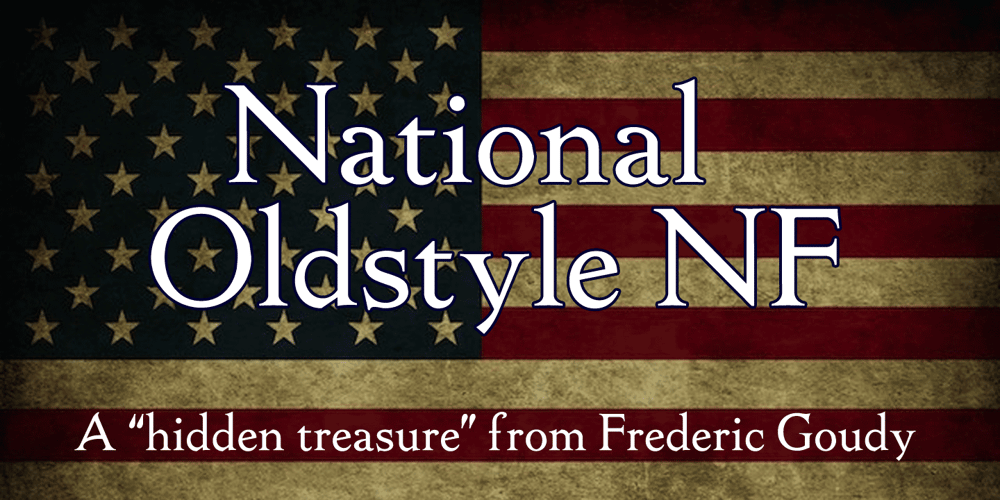
National Oldstyle NF Font Family was designed by Frederic W. Goudy, Nick Curtis and published by Nick’s Fonts. National Oldstyle NF contains 1 styles and family package options. This font is based on a little-known work by master type craftsman Frederic Goudy called—wait for it—National Oldstyle. Use it when a blend of classic and slighly quirky is called for. Both versions of this font support the Latin 1252, Central European 1250, Turkish 1254 and Baltic 1257 codepages.